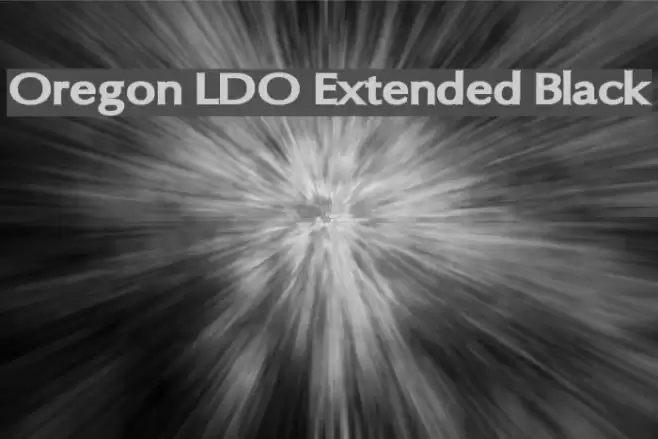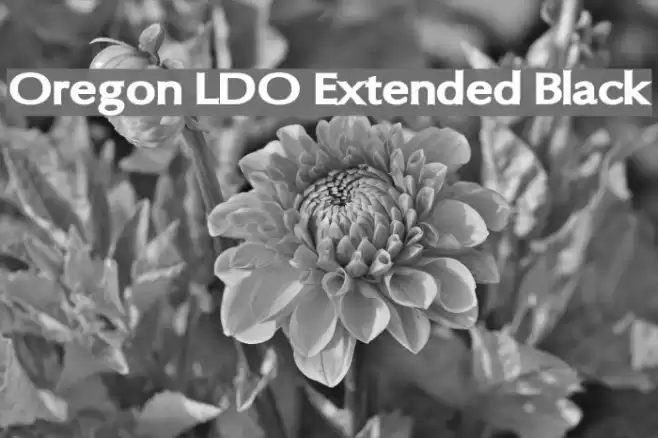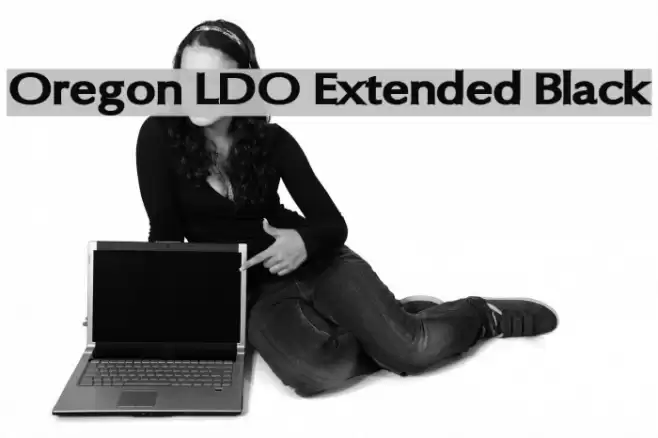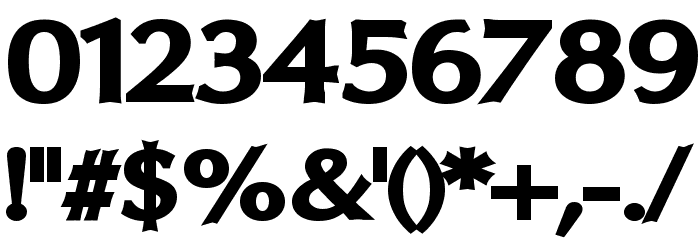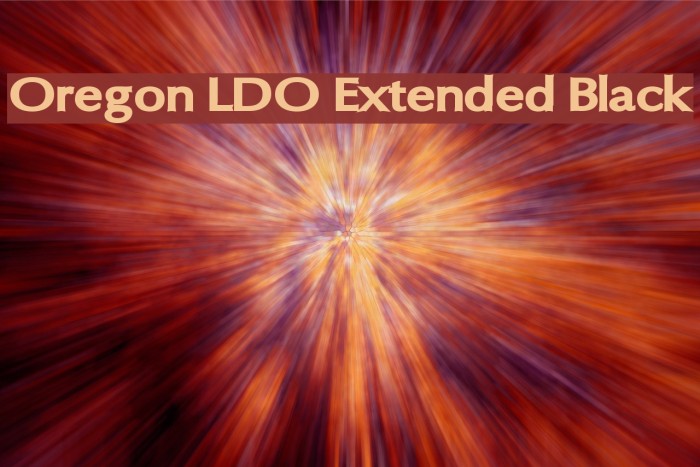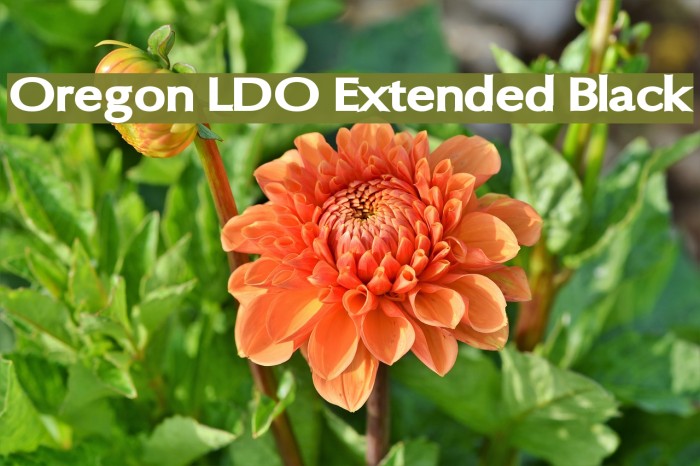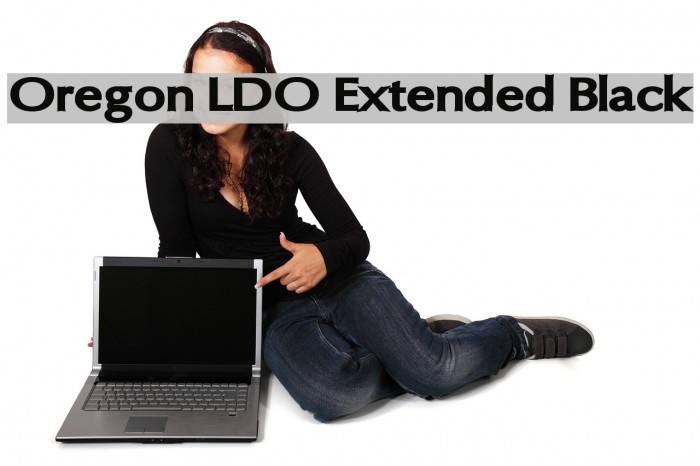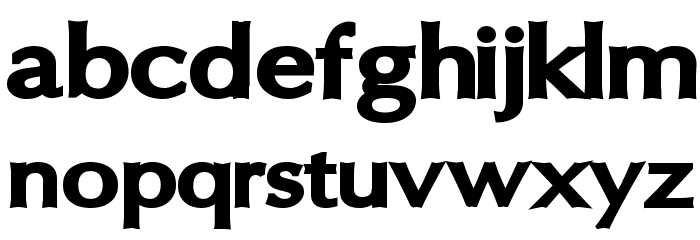
Oregon LDO Extended Black Font
Oregon LDO Extended Black Description
This font exhibits a bold and commanding presence with its extended black style. The uppercase letters are sharp and angular, creating a sense of strength and authority. The lowercase letters maintain a consistent weight, offering a balanced and cohesive look. The numerals are robust and clear, ensuring readability. Special characters are designed with the same boldness, making them stand out effectively. This font's overall design is modern and impactful, suitable for making strong visual statements.
A bold, extended black font with a modern and commanding style from Uncategorized fonts.
- Proposed Projects: Ideal for branding, headlines, posters, and any design requiring a strong visual impact.